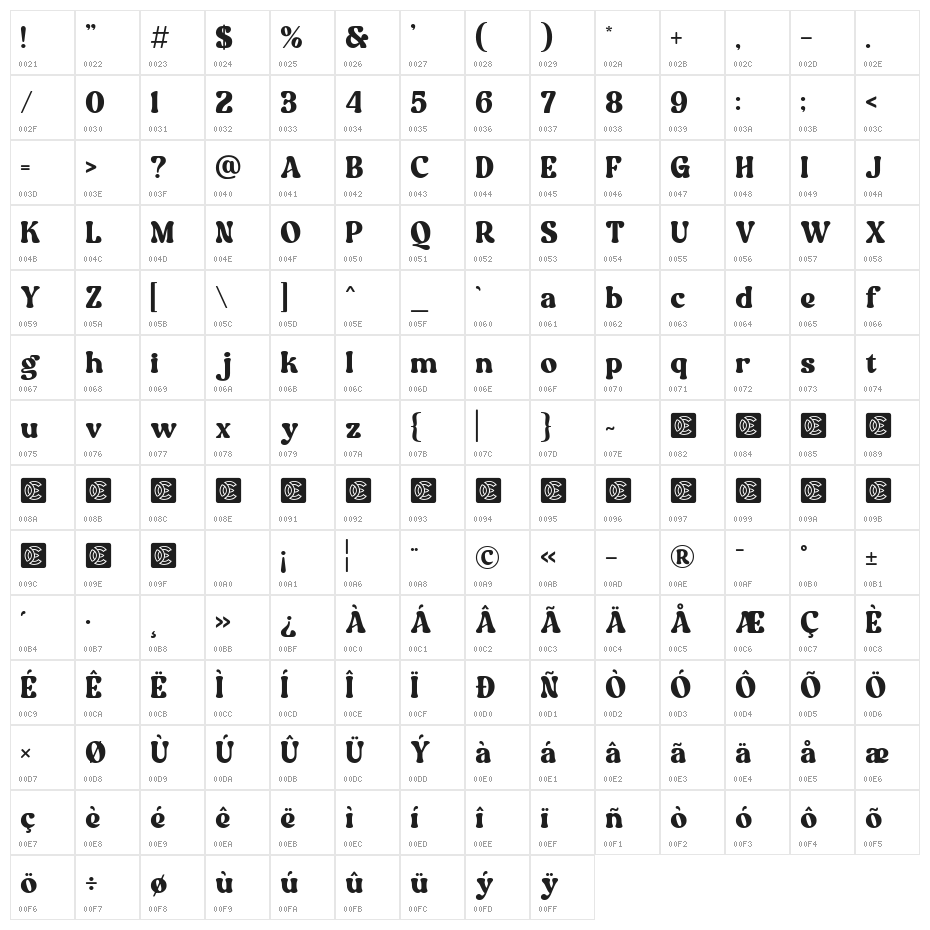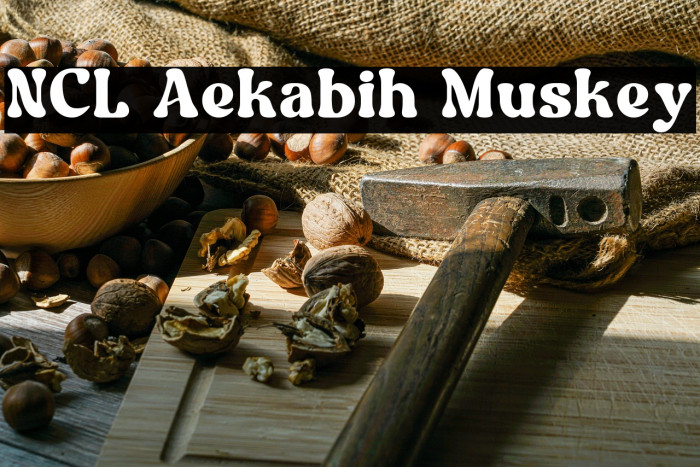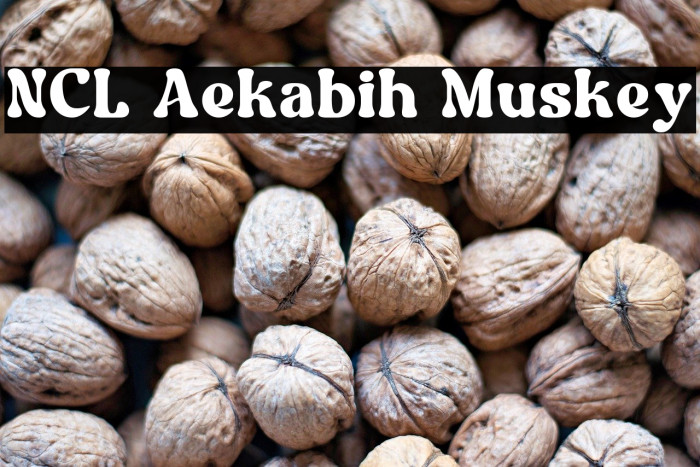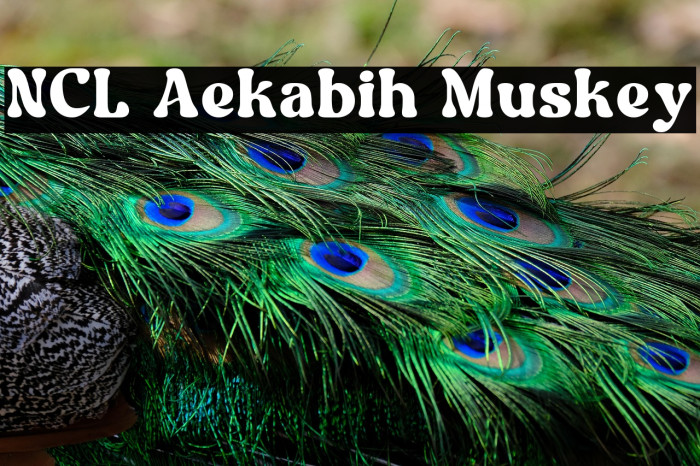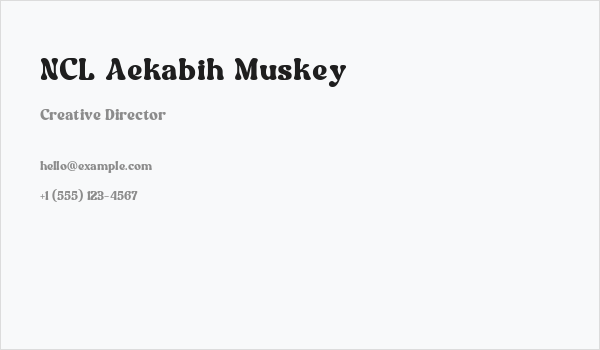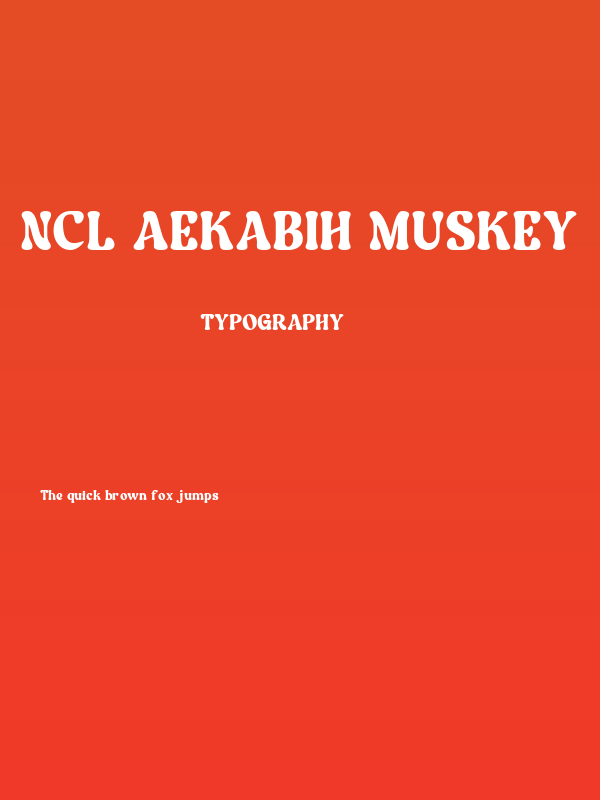
NCL Aekabih Muskey Font
NCL Aekabih Muskey Description
This font features a bold and playful design with thick, rounded strokes that give it a friendly and approachable appearance. The characters are well-defined with a slight vintage flair, making it stand out in any design. The uppercase and lowercase letters maintain a consistent style, with a slight variation in stroke width that adds a touch of uniqueness. The numbers and special characters are equally bold and expressive, ensuring readability and visual appeal. This font is ideal for projects that require a strong, yet whimsical touch.
| Overall Style | Vintage, Playful |
| Proposed Projects | Ideal for children's books, playful branding, posters, and creative advertisements. |